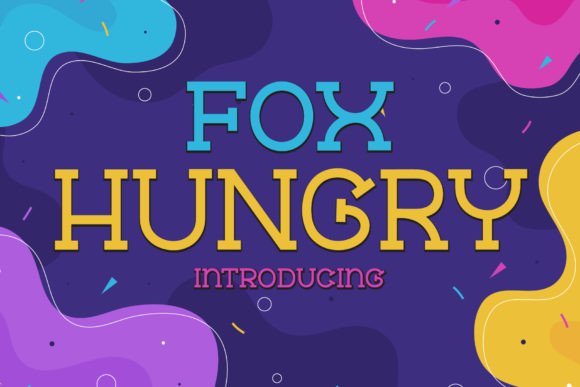
Introducing Fox Hungry Font, a charming and captivating slab serif font family designed to ignite your creativity and transform your projects into masterpieces. Immerse yourself in a world of delightful typography with Fox Hungry, a font that radiates warmth, playfulness, and undeniable charm.
With its whimsical curves and playful serifs, Fox Hungry Font is the perfect choice for creating designs that exude joy and lightheartedness. Its legible and friendly nature makes it perfect for kid-friendly projects, evoking a sense of wonder and excitement. Whether you're designing posters, wall art, stickers, or nursery decorations, Fox Hungry will add a touch of magic to your creations.
Step into the realm of love and romance with Fox Hungry Font, a font that whispers sweet nothings and kindles the flames of affection. Its graceful lines and elegant curves lend themselves beautifully to love letters, wedding invitations, and Valentine's Day cards. Express your heartfelt emotions with Fox Hungry, a font that captures the essence of love and leaves a lasting impression on your loved ones.
But Fox Hungry Font's charm doesn't stop there. Its versatility extends to a wide range of projects, including posters, wall art, and festival designs. Its bold and eye-catching presence makes it ideal for creating captivating headlines, logos, and branding materials that demand attention. Let Fox Hungry be your creative companion, guiding you towards designs that resonate with your audience and leave an indelible mark.
Unlock the endless possibilities of Fox Hungry Font, a font that ignites your imagination and fuels your creativity. With its inviting personality and boundless versatility, Fox Hungry will transform your designs into works of art. Embrace the joy of typography and elevate your projects to new heights with Fox Hungry Font.